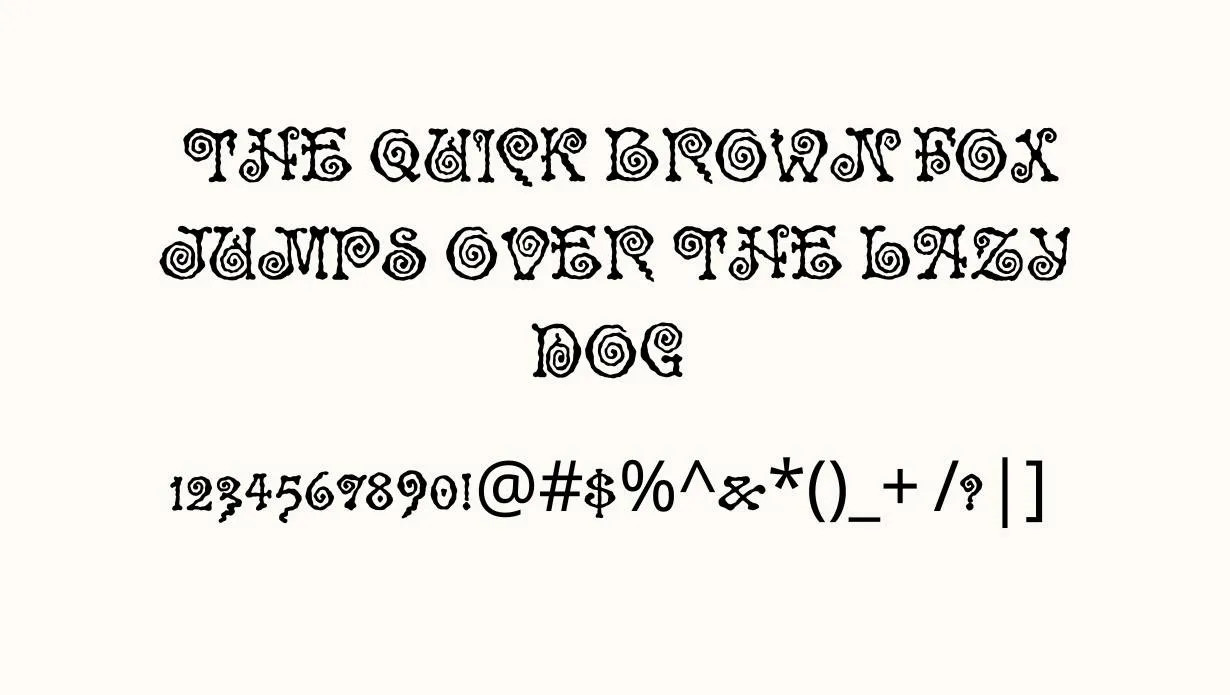
Spinstee Font is a decorative and imaginative typeface often chosen for creative branding, advertising, and projects where designers want to create a unique and artistic visual impact.
The font’s expressive and intricate letterforms make it stand out and draw attention.
Spinstee Font Family